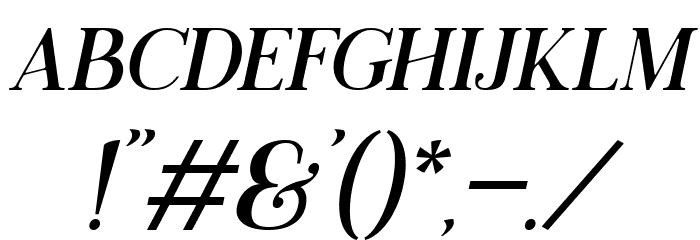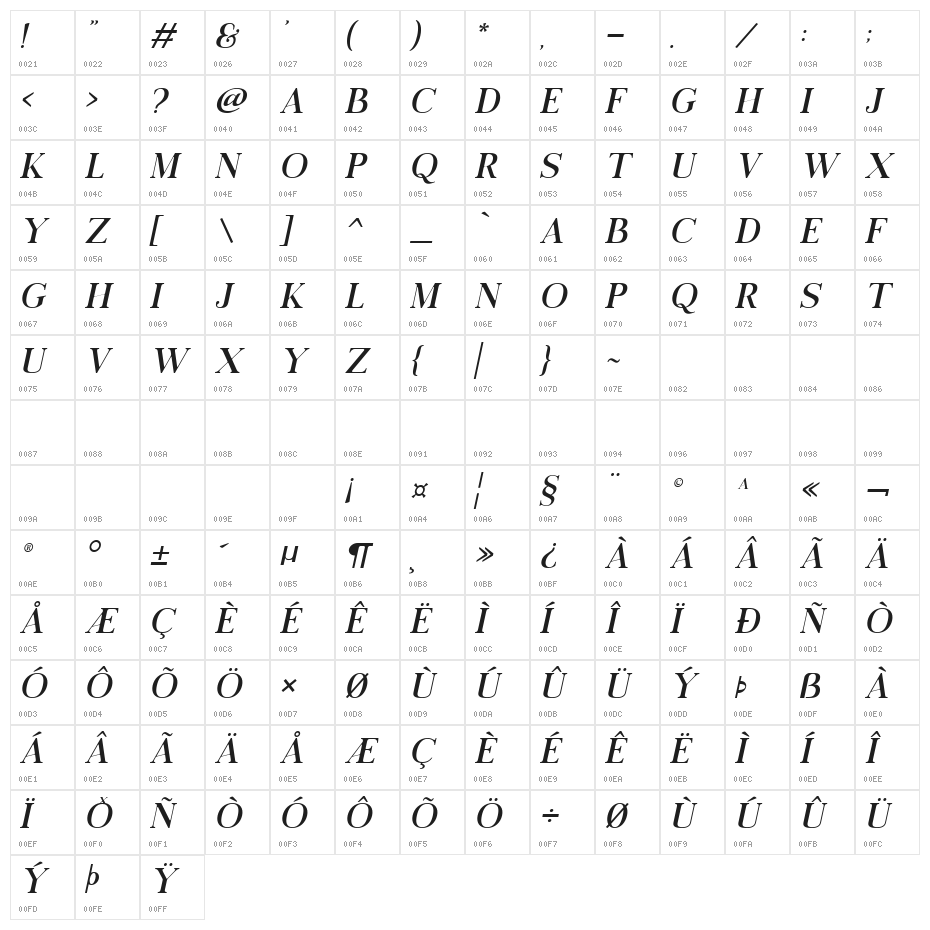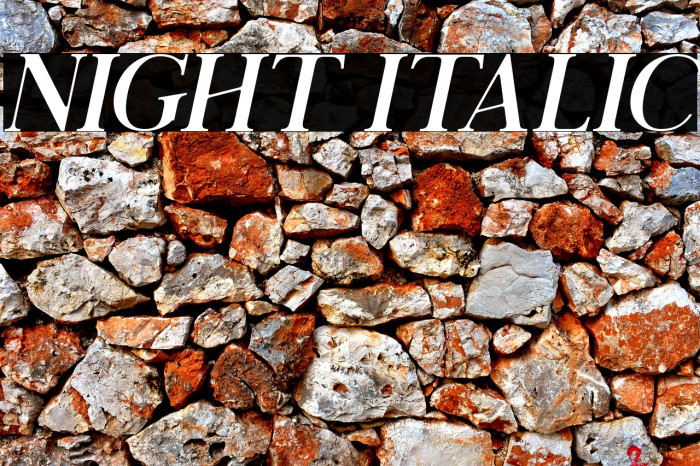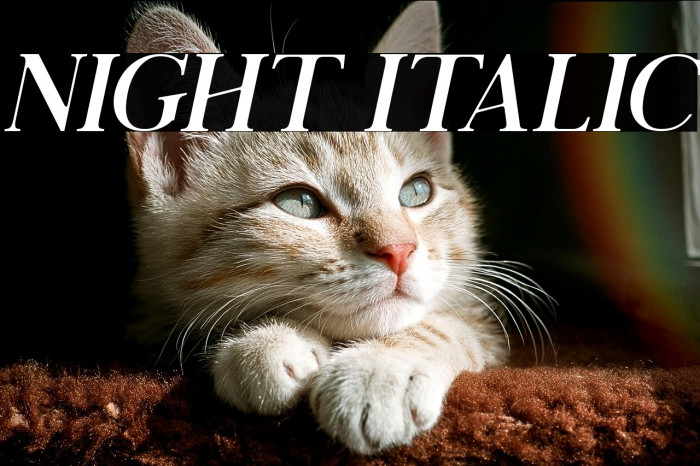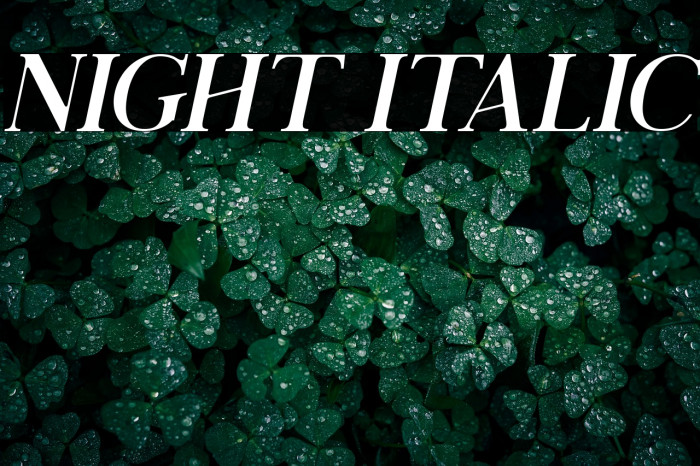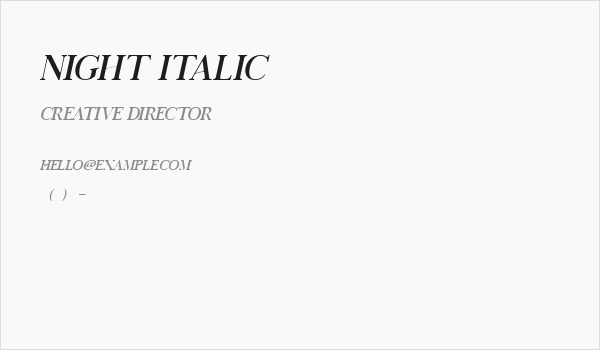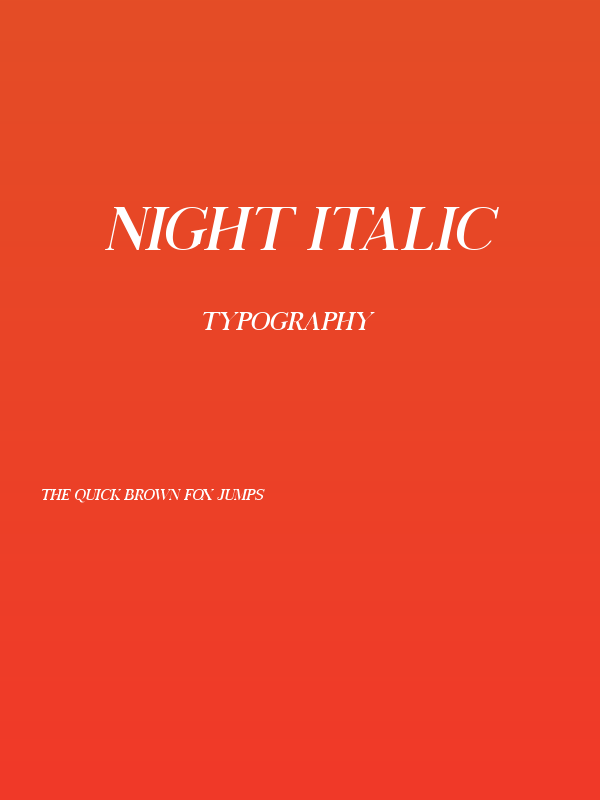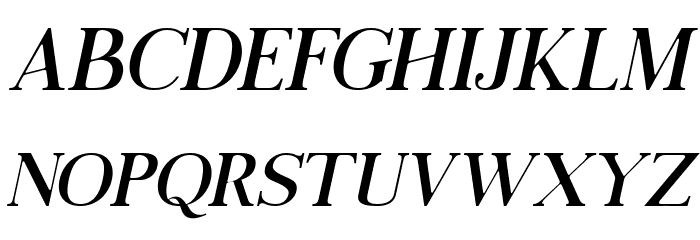
Night Italic Font
Night Italic Description
This font features an elegant and sophisticated italic style, characterized by its smooth, flowing lines and moderate contrast between thick and thin strokes. The letters are slightly slanted to the right, giving a sense of motion and dynamism. The serifs are sharp and pronounced, adding a classic touch to the overall design. The uppercase and lowercase letters maintain a consistent style, with a harmonious balance between curves and straight lines. The numerals and special characters are designed to complement the alphabet, ensuring readability and aesthetic appeal.
| Use Case | Logos, Headlines, Editorial design |
| Proposed Projects | Ideal for use in luxury branding, editorial design, wedding invitations, and high-end product packaging. |